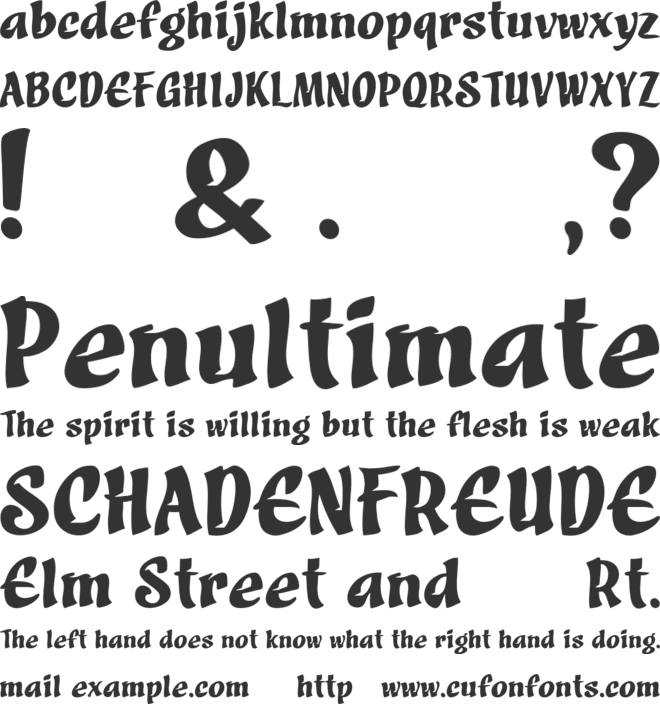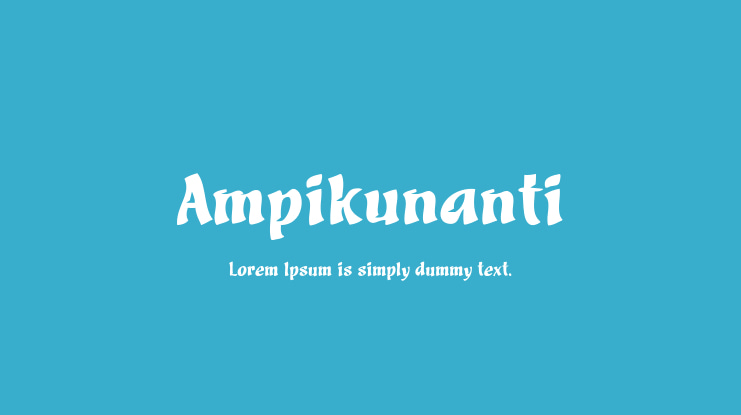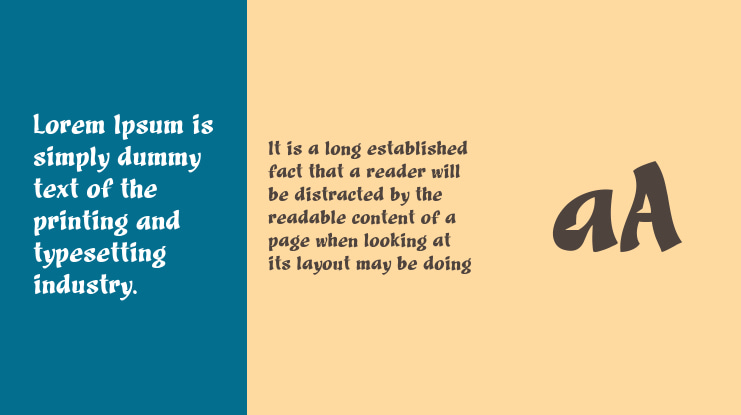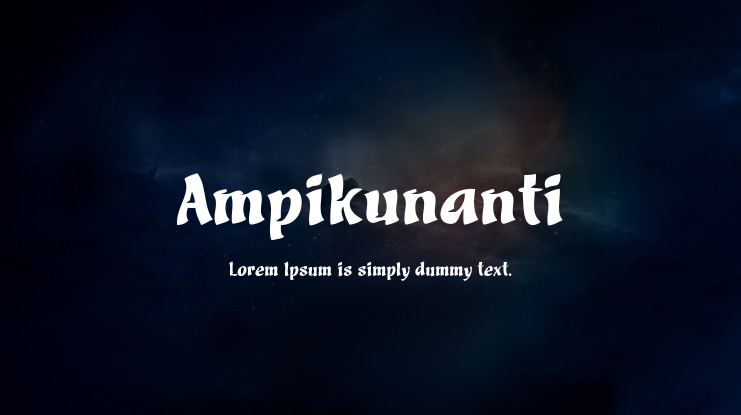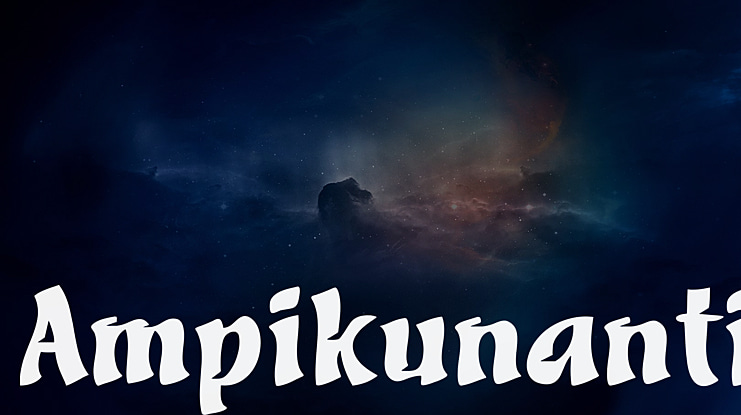
Ampikunanti Font
Write # after any lowercase letter to make swashes! You can also write % after the following letters to make left swashes: b d f h i j k l t Example: Black% Lar#ch